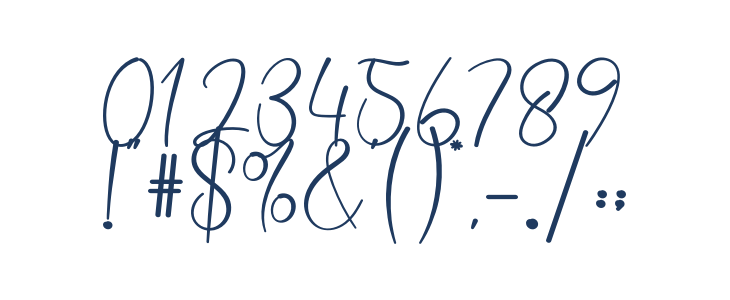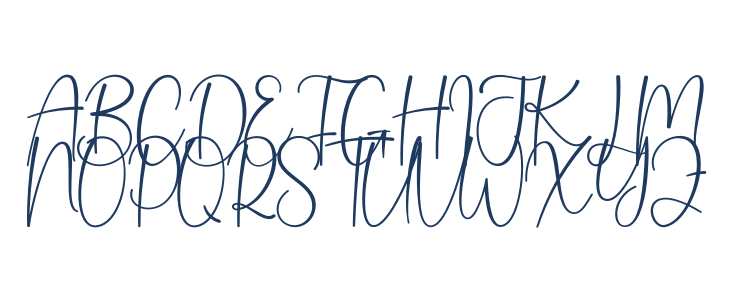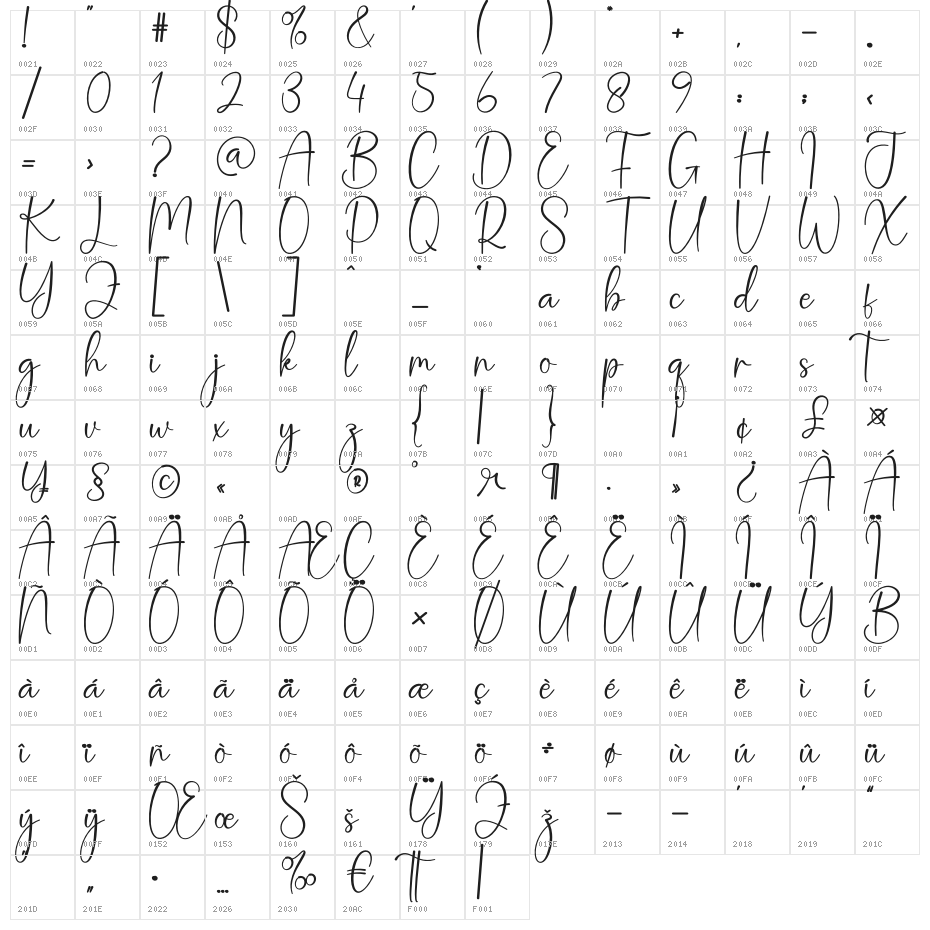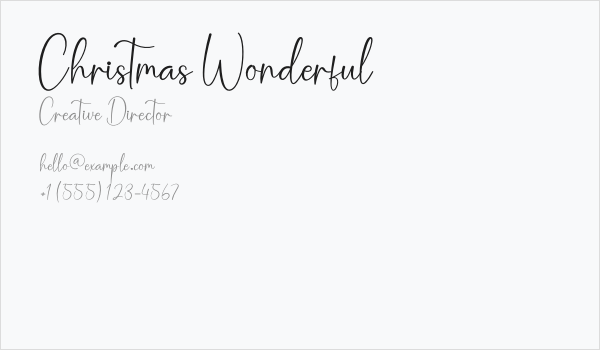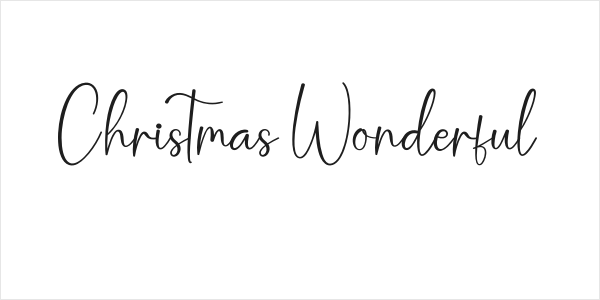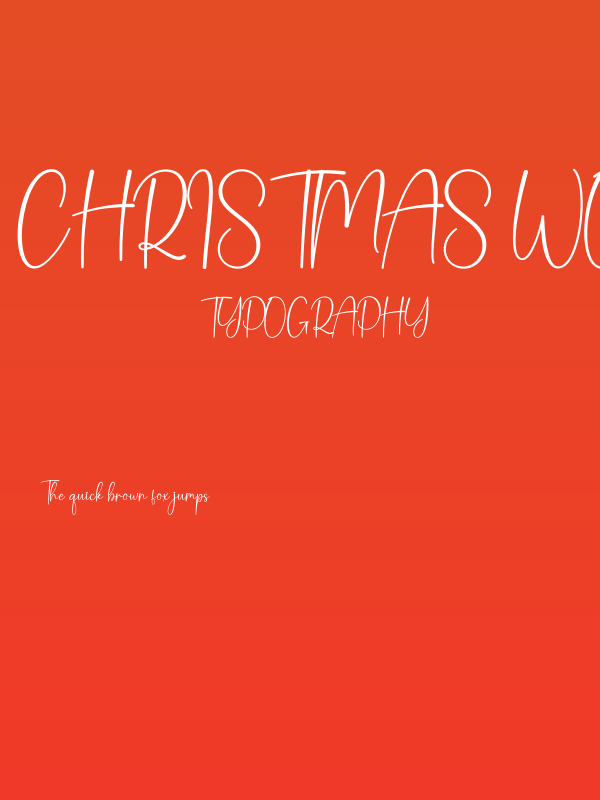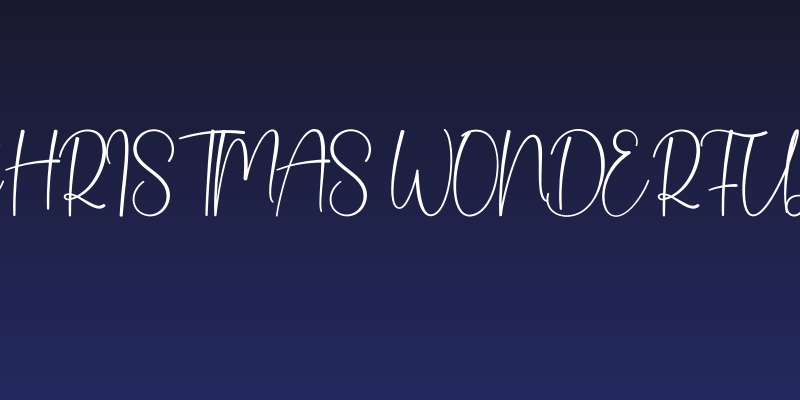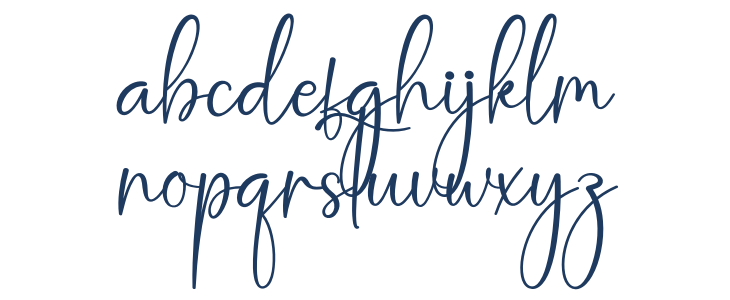
Christmas Wonderful Font
Christmas Wonderful Description
A playful, handwritten script font with tall, looping ascenders and descenders, featuring fluid, connected strokes and a casual, festive appearance. The characters are thin and airy, with generous spacing and a whimsical feel.
| Overall Style | Decorative, Festive, Playful |
| Use Case | Headlines, Invitations, Greeting cards, Decorative text |
| Proposed Projects | Holiday cards, invitations, event posters, branding for festive or creative businesses, social media graphics. |